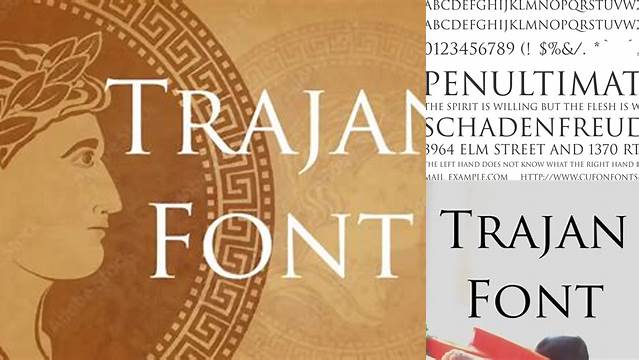
What is the Trajan Font?
Trajan is a classic serif typeface designed by Carol Twombly in 1989 for Adobe. Inspired by the lettering on the base of Trajan's Column in Rome, this font embodies elegance, authority, and timelessness. Its clean lines and balanced proportions make it a popular choice for a wide range of applications, from movie posters and book covers to corporate branding and editorial design. The Trajan font is more than just a typeface; it's a statement. It speaks of history, tradition, and sophistication. Its roots in ancient Roman inscriptions give it a sense of gravitas and importance that few other fonts can match. This is why you'll often see it used in contexts where these qualities are desired, such as in legal documents, religious texts, and high-end branding materials.
When Carol Twombly designed Trajan, she wasn't simply copying the Roman capitals. She was interpreting them, bringing a modern sensibility to a historical form. The result is a typeface that feels both ancient and contemporary. The characters are strong and clear, with a subtle refinement that makes them a joy to read. The serifs are sharp and well-defined, adding to the font's overall sense of formality and elegance. One of the key characteristics of Trajan is its all-caps design. The original Roman inscriptions were in capital letters, and Twombly chose to maintain this tradition. While this limits its versatility to some extent, it also contributes to its unique character. Trajan is not a font you would typically use for body text; it's better suited for headlines, titles, and other display purposes. The impact of Trajan lies in its ability to command attention. It's a font that makes a statement, whether it's used on a movie poster or a corporate logo. Its historical roots give it a sense of authority, while its elegant design ensures that it always looks stylish and refined. If you're looking for a font that conveys strength, tradition, and sophistication, Trajan is an excellent choice.
Key Characteristics of Trajan:
- Serif Typeface: Trajan is a serif font, meaning it has small decorative strokes (serifs) at the end of its letterforms. These serifs contribute to its classic and formal appearance.
- All-Caps Design: The original Trajan font is designed entirely in uppercase letters, mirroring the inscriptions on Trajan's Column. This gives it a strong, authoritative presence.
- Elegant and Balanced: The letterforms are meticulously crafted with balanced proportions and clean lines, making it highly legible and visually appealing.
- Timeless Appeal: Its historical inspiration ensures that Trajan remains a timeless choice for designs that need to convey a sense of tradition and sophistication.
Why Use the Trajan Font?
The Trajan font is highly versatile and suitable for various design projects. Its historical roots give it a sense of authority and elegance, making it ideal for:
- Movie Posters: You've likely seen Trajan used in countless movie posters, especially for historical dramas and epics. Its dramatic flair and classic aesthetic make it a perfect fit for this genre.
- Book Covers: Similarly, Trajan is a popular choice for book covers, particularly for historical fiction, non-fiction, and literary works. It adds a touch of sophistication and timelessness to the design.
- Corporate Branding: Many high-end brands use Trajan in their logos and branding materials to convey a sense of prestige and reliability. Think law firms, financial institutions, and luxury brands.
- Editorial Design: Trajan is often used in magazines and newspapers for headlines and titles, adding a touch of elegance to the layout.
- Invitations and Announcements: Its formal and sophisticated look makes Trajan a great choice for wedding invitations, graduation announcements, and other special occasions.
The visual impact of the Trajan font is undeniable. Its bold, uppercase letters command attention and create a sense of importance. This makes it particularly effective for headlines and titles, where you want to make a strong statement. The font's classic design also ensures that it remains legible even at smaller sizes, which is essential for body text in certain applications. However, it's important to note that Trajan is primarily a display font, meaning it's best used for short bursts of text rather than long paragraphs. Its all-caps design can become tiring to read in large quantities, so it's crucial to use it judiciously.
One of the reasons why Trajan is so widely used is its versatility. While it's often associated with historical themes, it can also be used effectively in contemporary designs. Its clean lines and balanced proportions make it adaptable to a variety of styles and aesthetics. Whether you're creating a vintage-inspired poster or a modern corporate logo, Trajan can be a valuable asset. It's also worth noting that Trajan pairs well with other fonts. When used in combination with a simpler sans-serif font, it can create a striking contrast that enhances the overall design. The key is to experiment and find the right balance that suits your specific needs.
Ultimately, the decision of whether or not to use Trajan depends on the message you're trying to convey. If you want to evoke a sense of history, tradition, and sophistication, it's an excellent choice. But if you're looking for a more casual or contemporary feel, you might want to consider other options. Understanding the strengths and limitations of Trajan is essential for using it effectively in your designs. Its elegance and authority can elevate your work, but it's crucial to use it in a way that complements your overall vision.